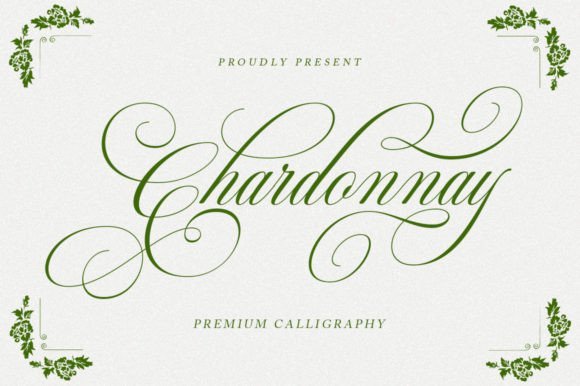
Chardonnay Font Script is a Premium calligraphy font, Chardonnay Script is handcrafted with a copper plate stylus and features open type with pug encode, Chardonnay Script is a Premium Calligraphy that includes alternatives, style sets, ligatures, and swashes. Each glyph lowercase has a stylized styling, Swiss is perfect for branding, invitations weddings and cards or quotes.